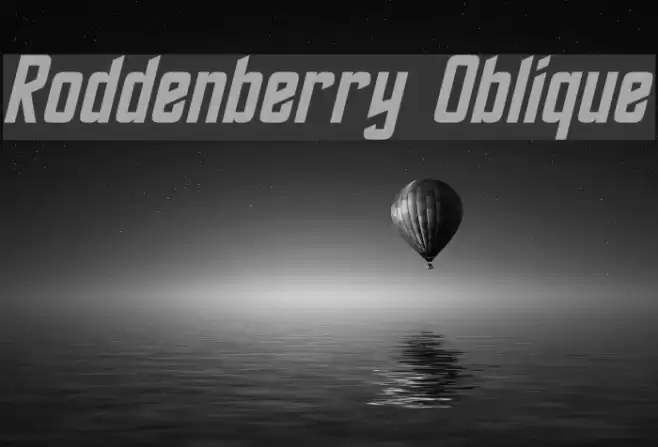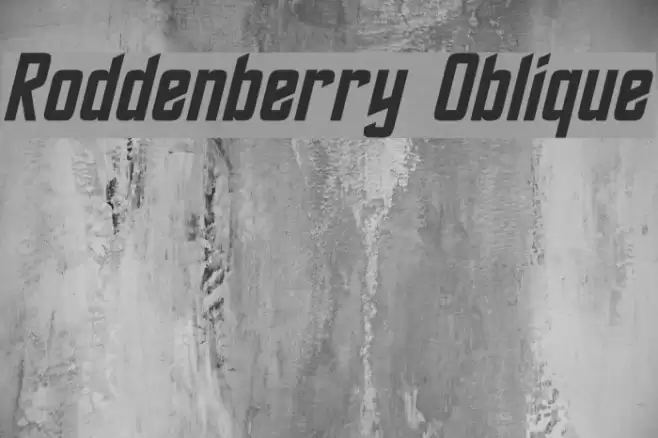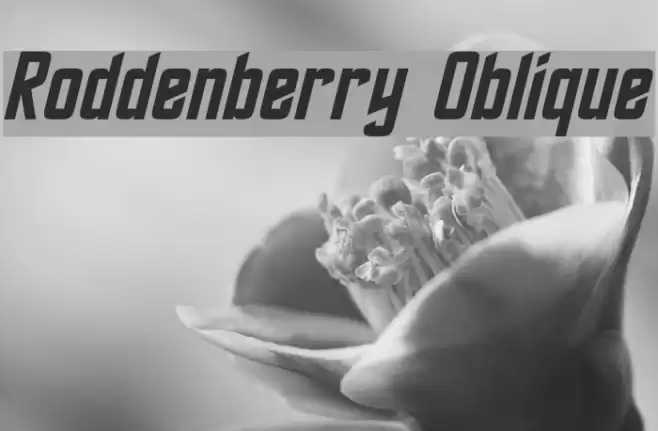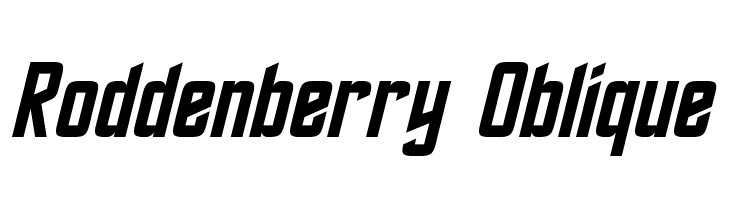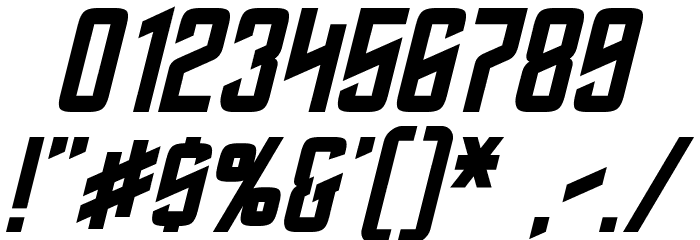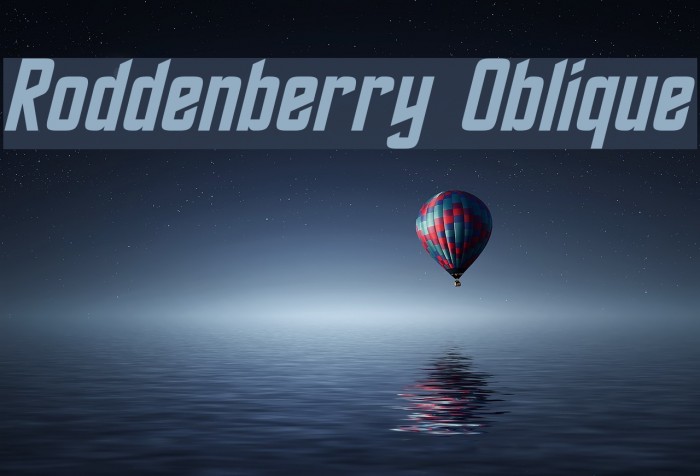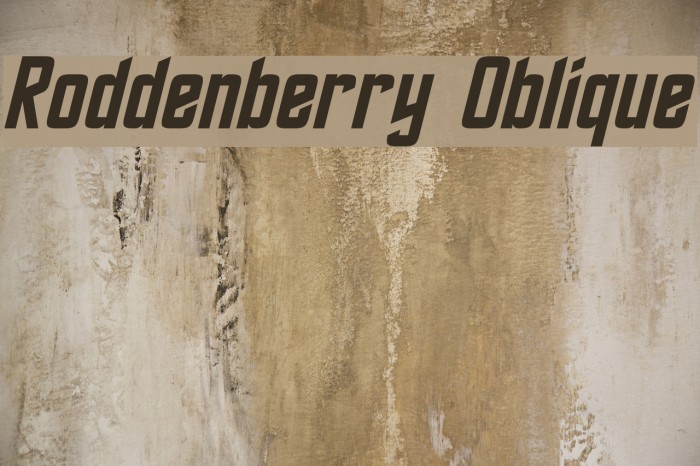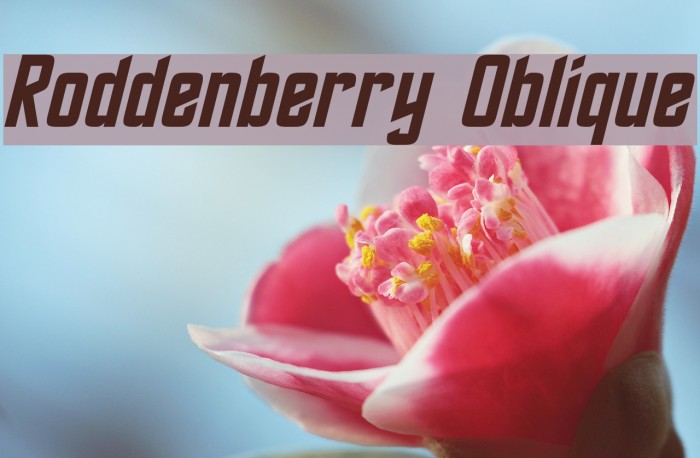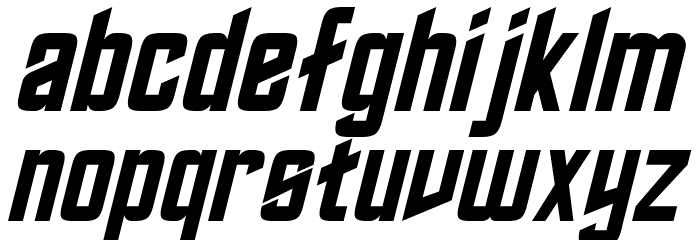
Roddenberry Oblique Font
Roddenberry Oblique Description
This font features a bold and dynamic oblique style, characterized by its sharp angles and futuristic appearance. The uppercase and lowercase letters maintain a consistent slant, giving the text a sense of motion and speed. The numerals and special characters are designed to match the angular and sleek aesthetic, making them ideal for modern and tech-oriented designs. The font's strong presence and unique style make it suitable for projects that require a bold statement.
A bold, oblique font with a futuristic and dynamic style from Uncategorized fonts.
- Proposed Projects: Ideal for sci-fi themed projects, technology branding, video game titles, and dynamic posters.